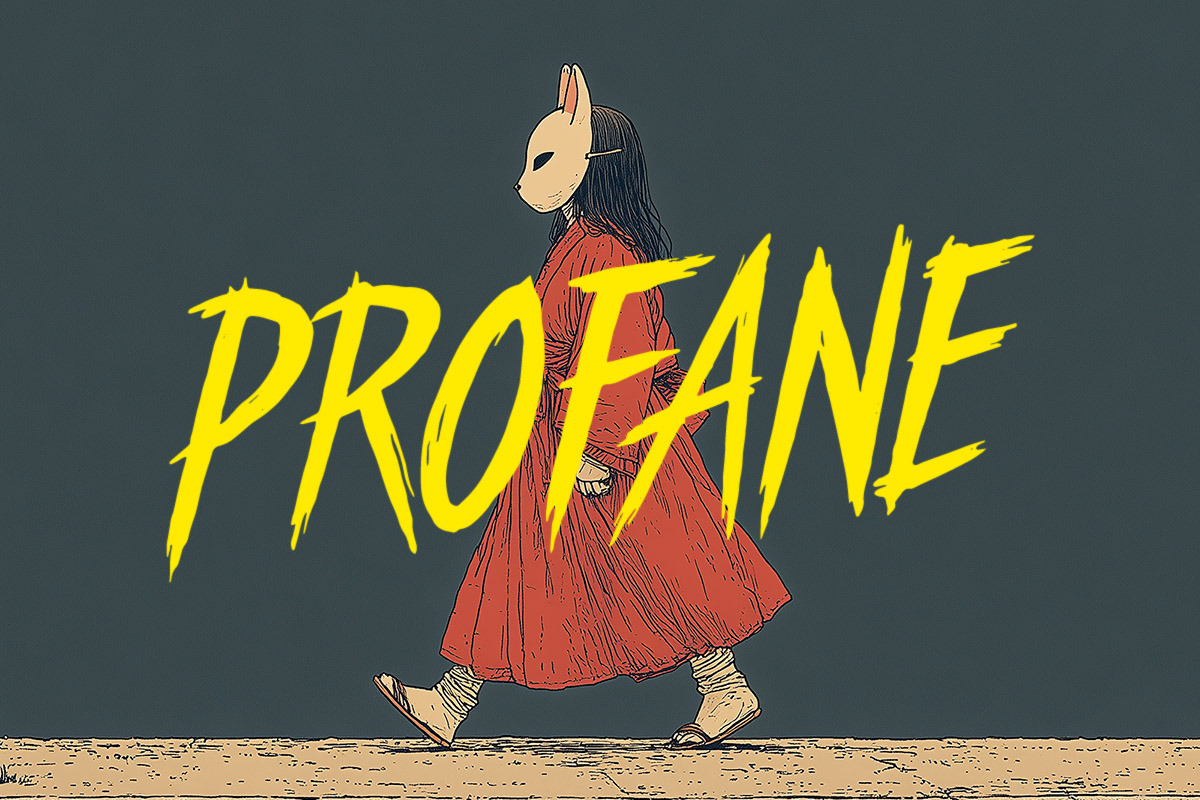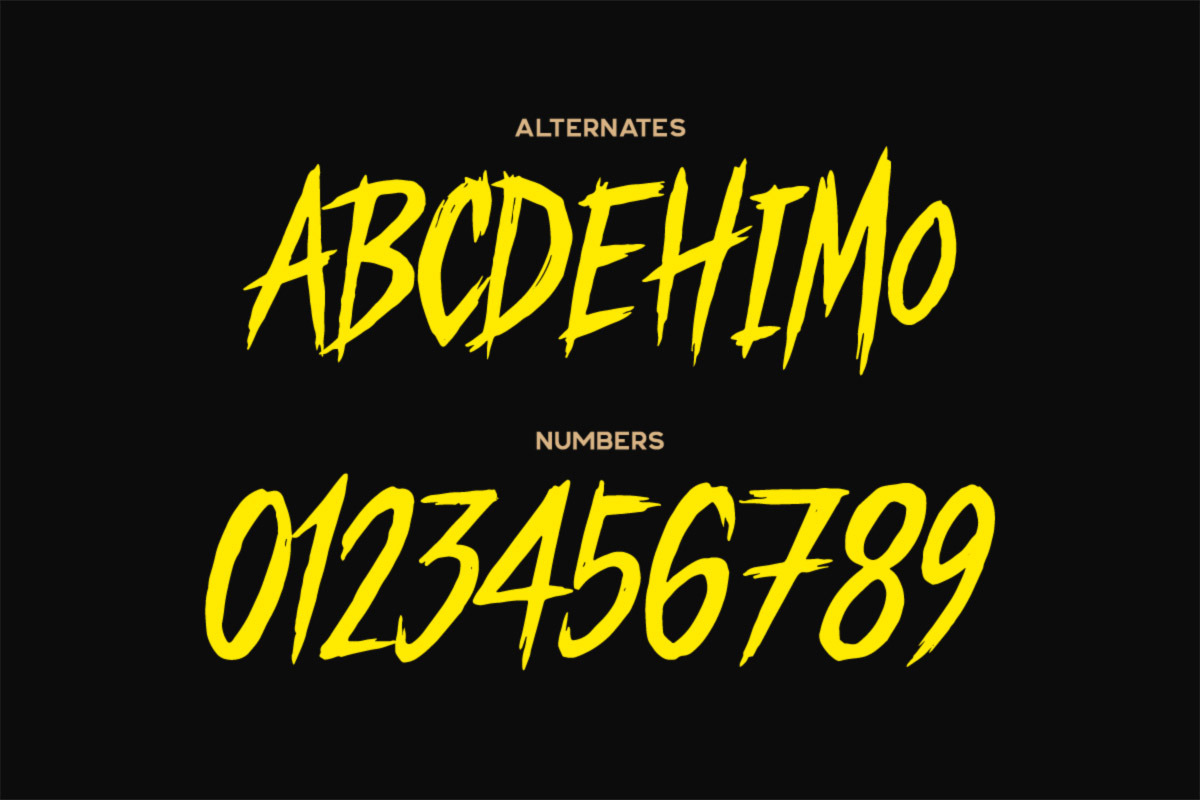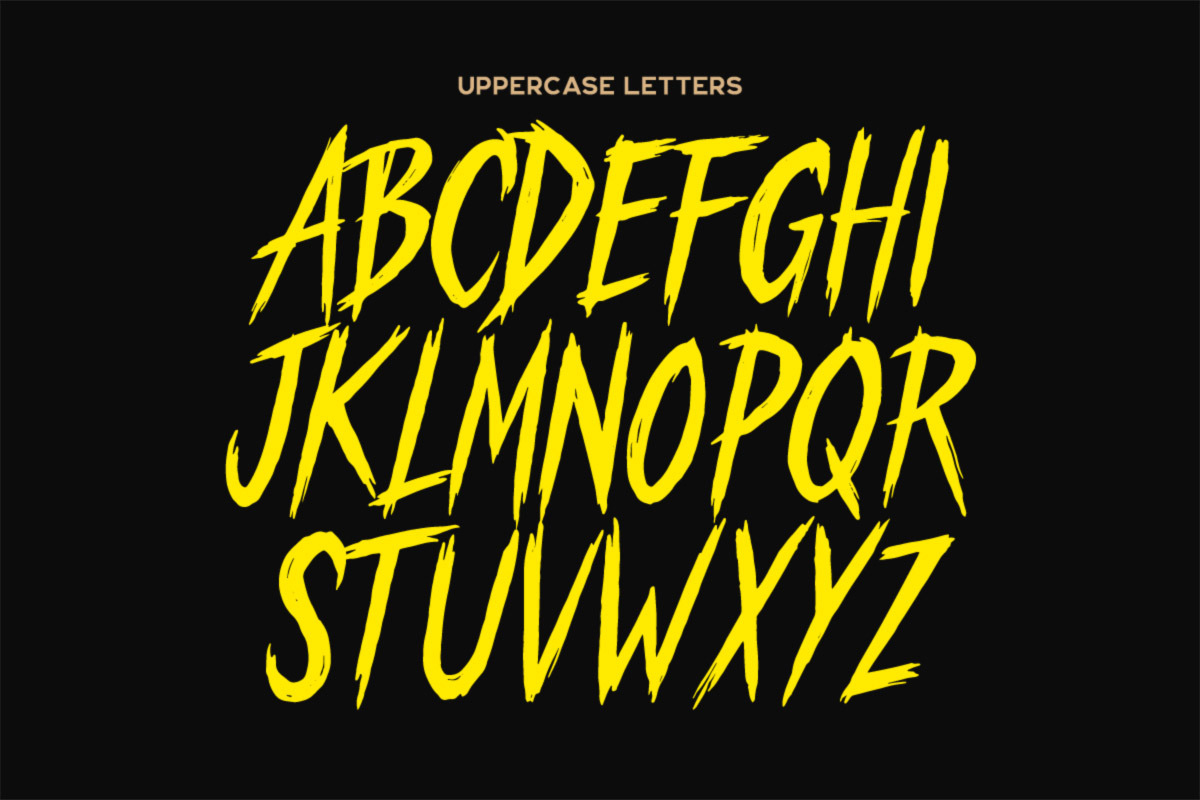
Profane - Brush Font
PROFANE is a vicious, high-impact brush display font carved with sharp strokes, chaotic energy, and raw attitude. Its slashed, jagged lettering makes it perfect for horror titles, metal band logos, dark posters, thriller covers, and anything that needs an aggressive, unhinged aesthetic. Includes alternates and numbers for expressive, unpredictable layouts.